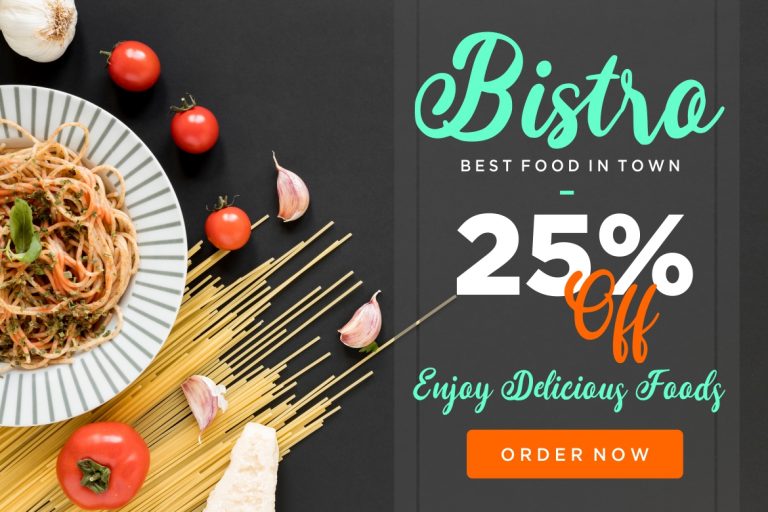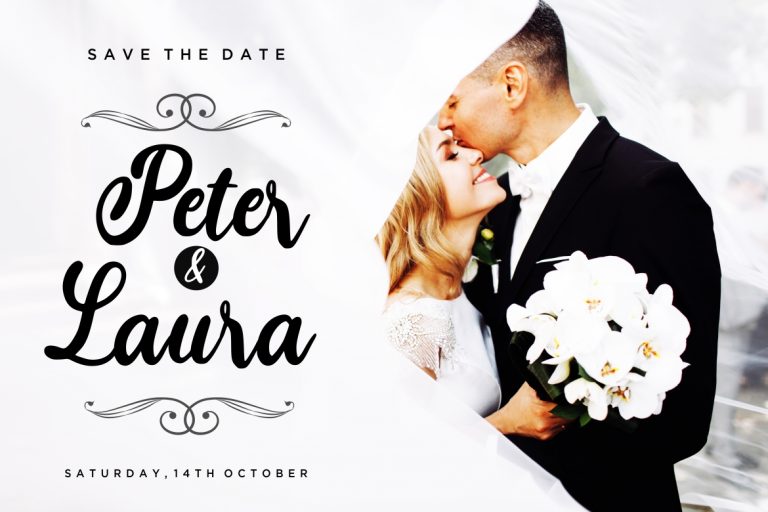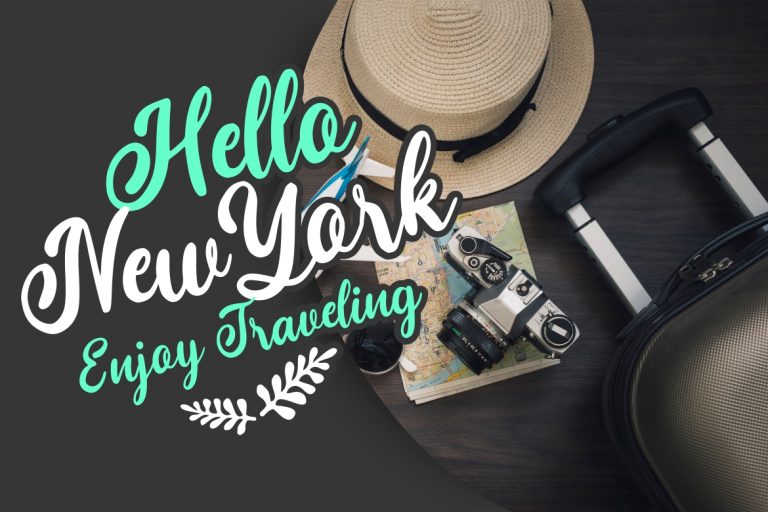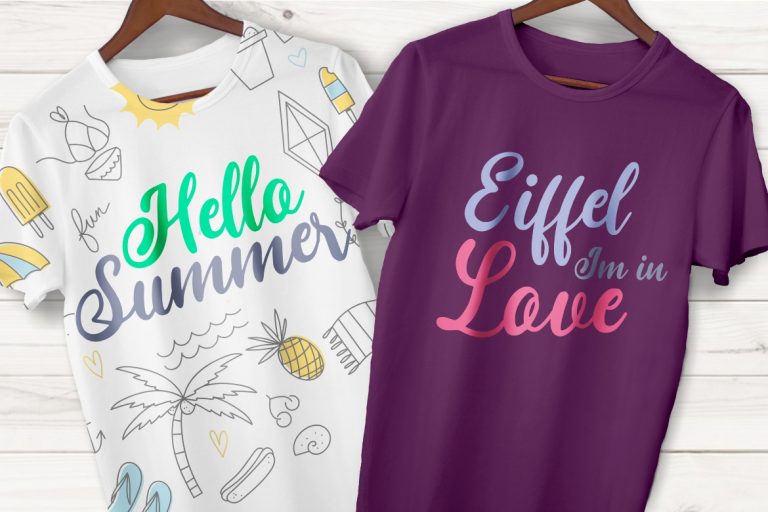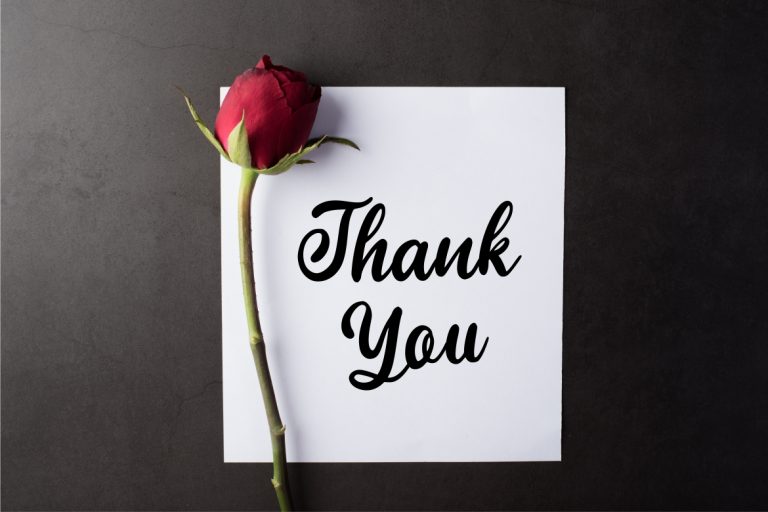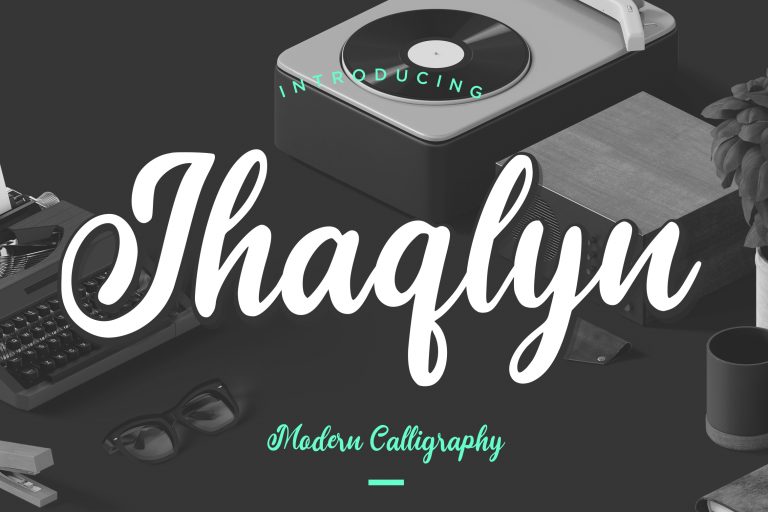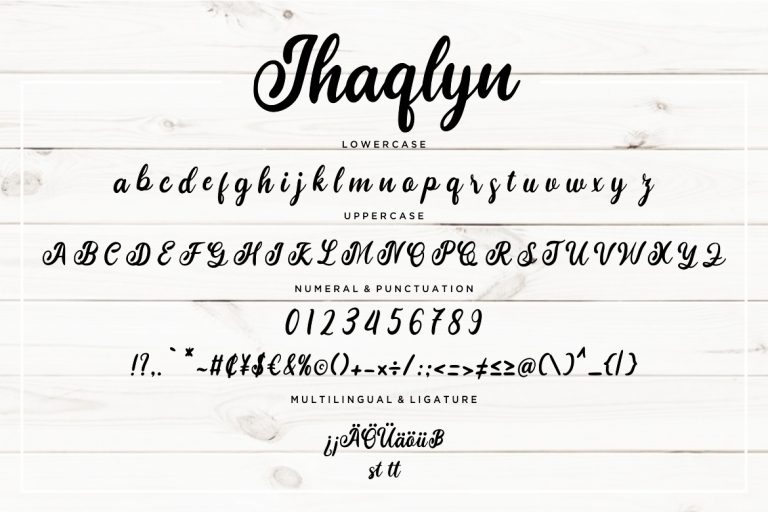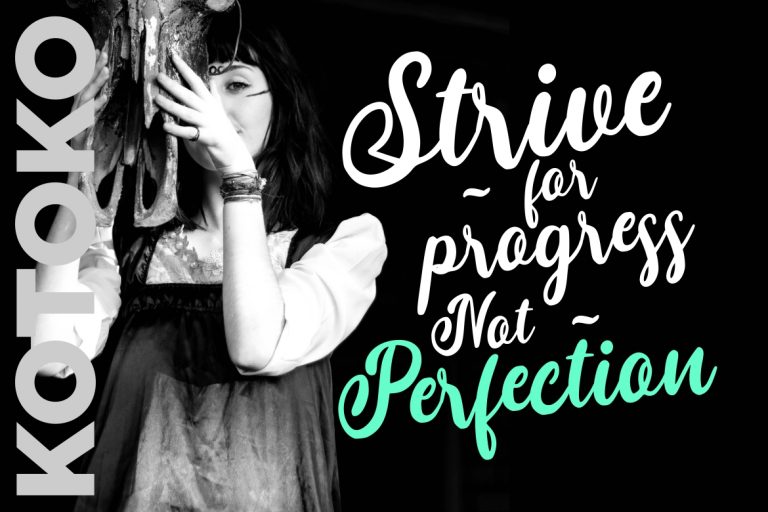
Jhaqlyn is modern calligraphy font with bold and elegant style.
Jhaqlyn is perfect for branding projects, logo, wedding designs, social media posts, advertisements, product packaging, product designs, label, photography, watermark, invitation, stationery and any projects that need handwriting taste.
- Fonts include multilingual support for; ä ö ü Ä Ö Ü ß ¿ ¡
Jhaqlyn Modern Calligraphy